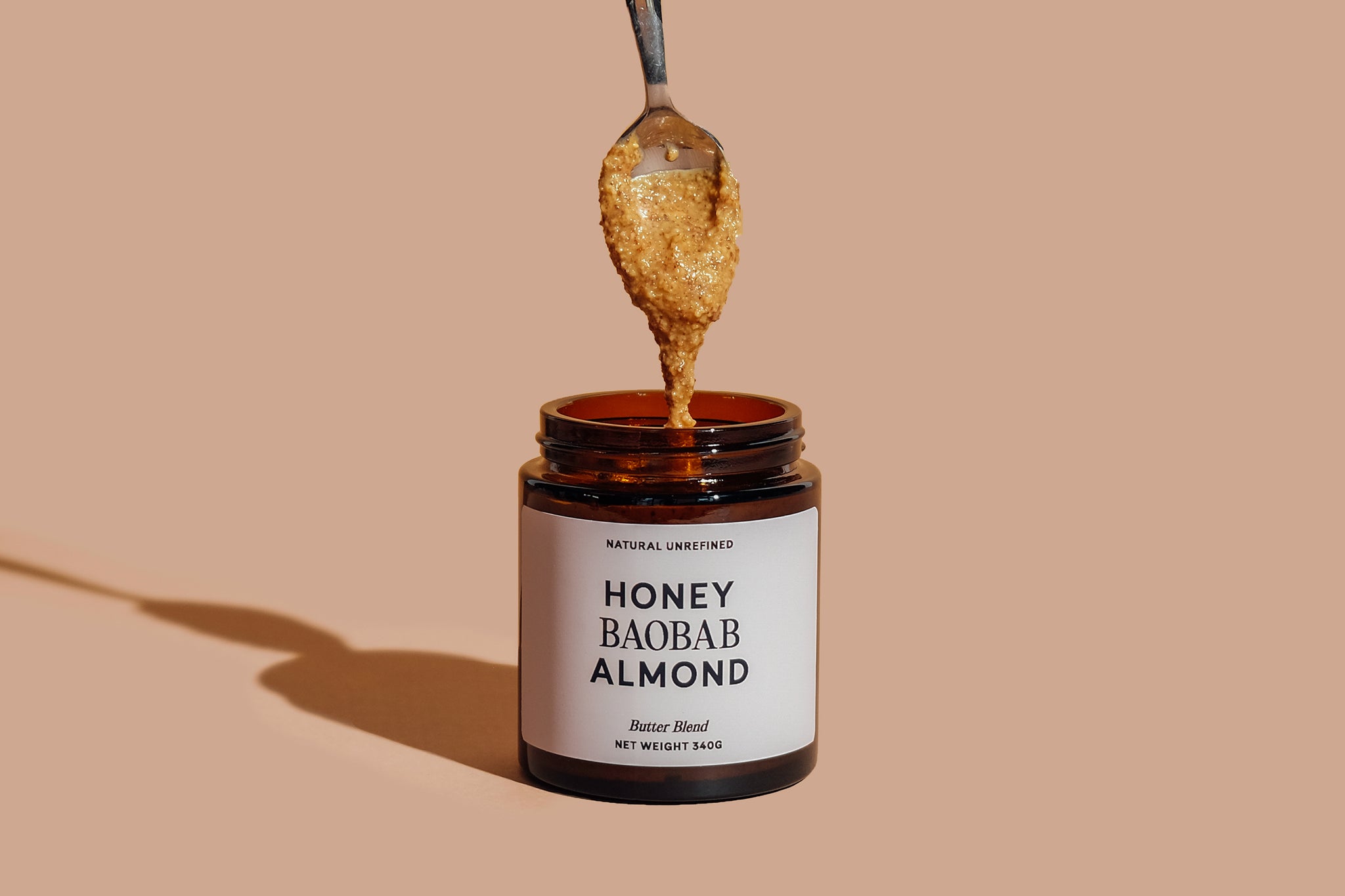
Here’s the Cape Town artist’s take on this beautiful new packaging design developed for PetitGrain Adaptogenic Butter Blends. Editorial New feels right at home in this elegant blend of earthy colors. Candice really made the minimal brand come together with the photography, the merch and business cards.